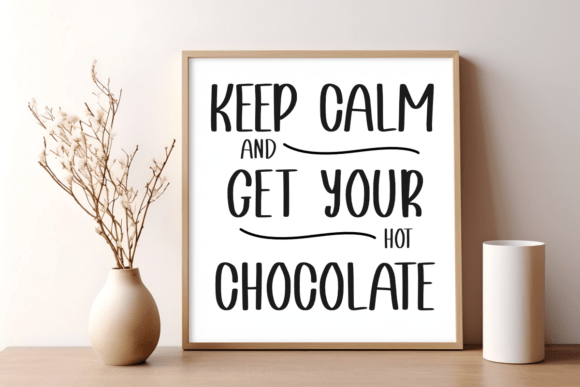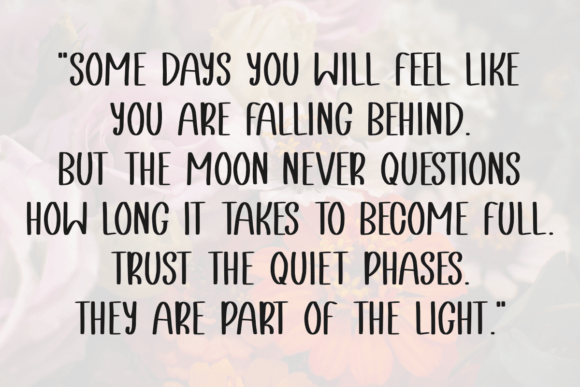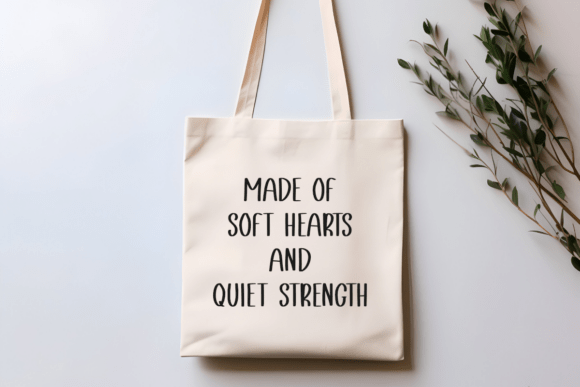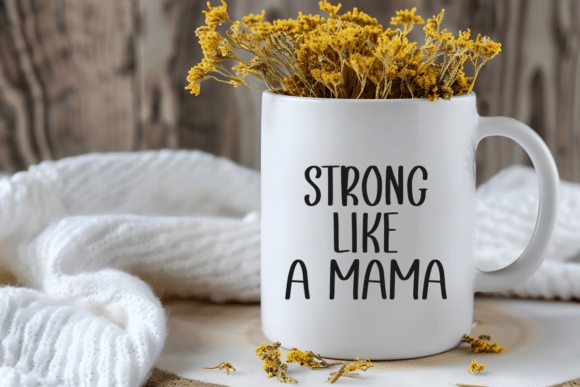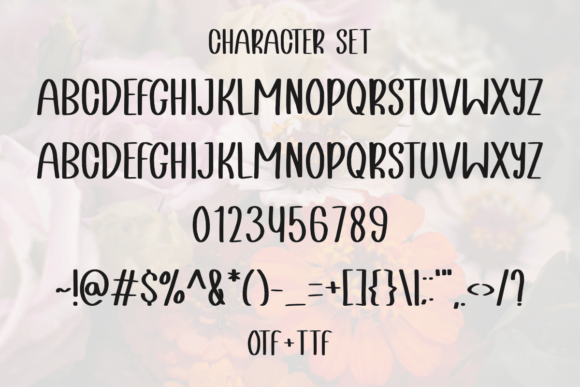
Elegant Bookmark Font: The Perfect Addition to Your Crafting Arsenal
Are you a crafter, designer, or maker looking for a font that adds a touch of elegance and playfulness to your projects? Look no further than the Elegant Bookmark Font! This fun and handwritten font is perfect for a variety of creative endeavors, from crafts and planners to KDP, stickers, and greeting cards.
What Makes Elegant Bookmark Font So Special?
Elegant Bookmark Font is a unique and versatile font that boasts a cute and friendly style, making it ideal for a wide range of applications. Its elegant and refined appearance is perfect for crafters, designers, and makers who want to add a personal touch to their projects. Whether you’re creating custom stickers, greeting cards, or planners, this font is sure to impress.
Perfect for Cricut, Sublimation, and DIY Projects
One of the best things about Elegant Bookmark Font is its compatibility with popular crafting tools like Cricut and sublimation. This font is optimized for use with these tools, making it easy to incorporate into your projects. Whether you’re a seasoned crafter or just starting out, Elegant Bookmark Font is the perfect addition to your arsenal.
Ideal for Crafters, Designers, and Makers
Elegant Bookmark Font is specifically designed with crafters, designers, and makers in mind. Its playful and elegant style makes it perfect for a variety of creative projects, from handmade cards and invitations to custom stickers and decals. With this font, you can add a personal touch to your projects and make them truly unique.
Use Elegant Bookmark Font for:
- Crafts: Add a touch of elegance to your handmade crafts, such as cards, gift tags, and scrapbook pages.
- Planners: Use Elegant Bookmark Font to create custom planner pages, inserts, and stickers.
- KDP: Create professional-looking books, journals, and planners with Elegant Bookmark Font.
- Stickers: Design custom stickers for your crafts, planners, or other projects.
- Greeting Cards: Add a personal touch to your handmade greeting cards and invitations.
Why Choose Elegant Bookmark Font?
So why choose Elegant Bookmark Font over other fonts? Here are just a few reasons:
- Unique and playful style: Elegant Bookmark Font boasts a one-of-a-kind style that’s sure to make your projects stand out.
- Elegant and refined appearance: This font is perfect for crafters, designers, and makers who want to add a touch of sophistication to their projects.
- Compatible with popular crafting tools: Elegant Bookmark Font is optimized for use with Cricut, sublimation, and other popular crafting tools.
- Handwritten font
- Cute and friendly style
- Elegant and refined appearance
- Compatible with Cricut, sublimation, and other popular crafting tools
- Ideal for crafters, designers, and makers